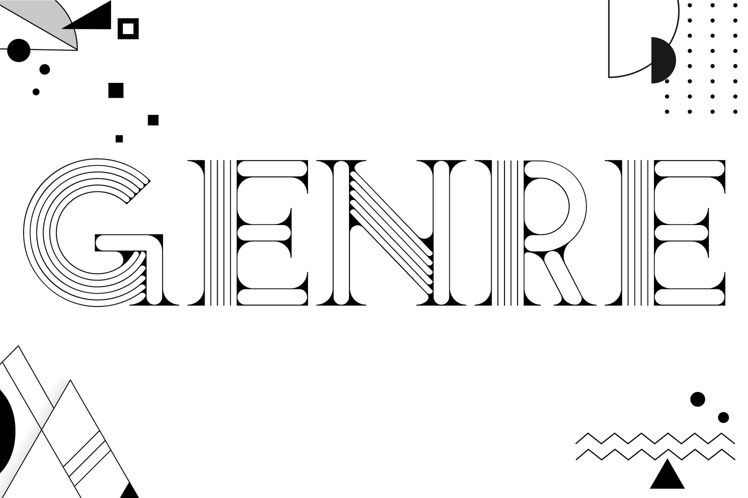
Genre Line Demo Regular
Genre Line, a captivating creation by 177Studio, stands out as an extra-bold display font with a decorative style that commands attention. With its distinctive lines and robust presence, this font infuses any project with personality and flair. Its heavy weight coupled with an intricate design makes Genre Line an ideal choice for headlines, branding, and advertising where making a striking visual statement is key.
The aesthetic appeal of Genre Line lies in its unique blend of boldness and decorative elements. Each character is crafted to make a strong impact while retaining readability—a balance that's essential for engaging audiences in both print and digital mediums.
Whether you're looking to add depth to your creative work or need a show-stopping typeface for an event poster, Genre Line offers versatility without sacrificing style. It's more than just text; it's a visual experience that enhances the message it conveys.